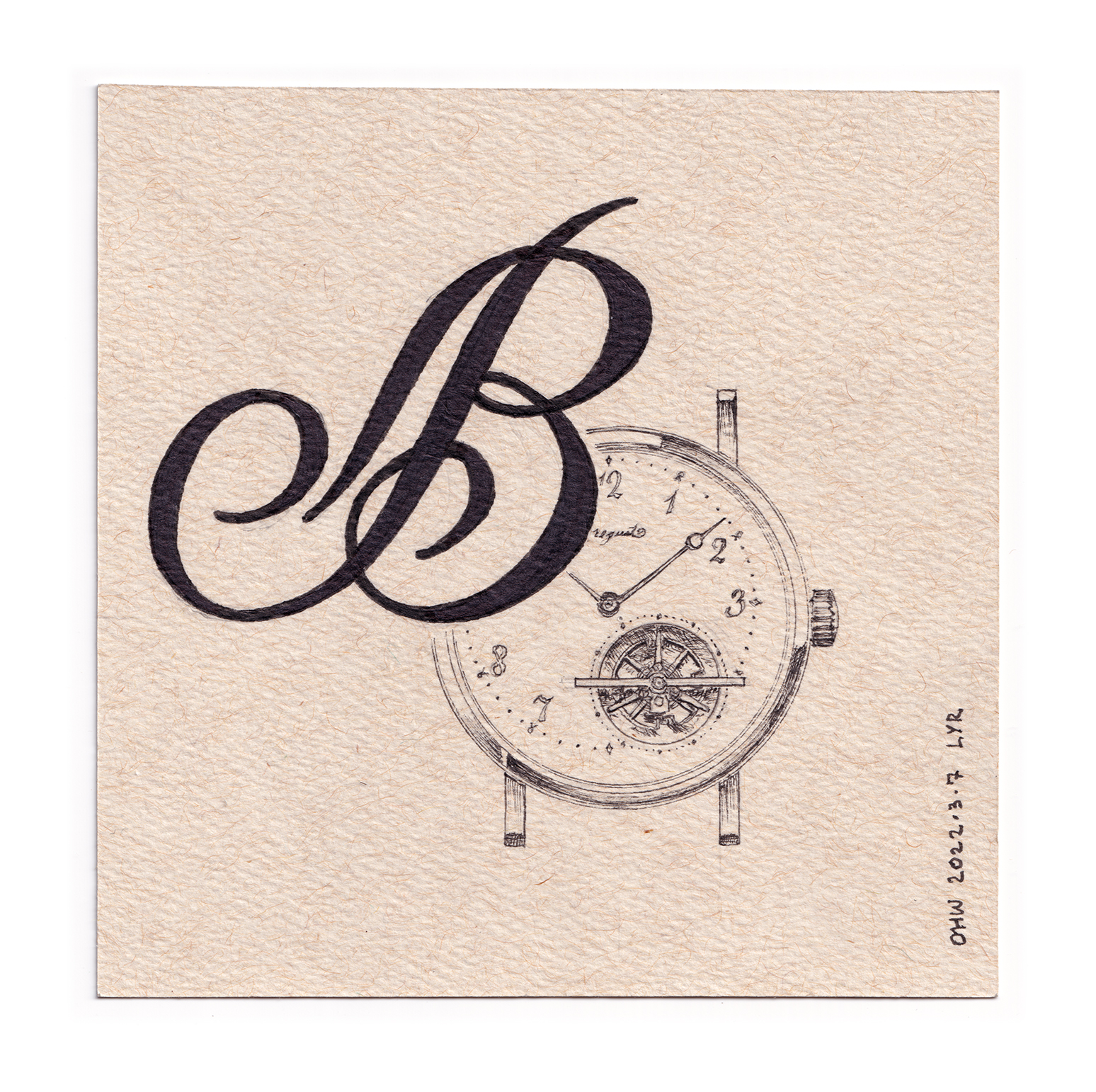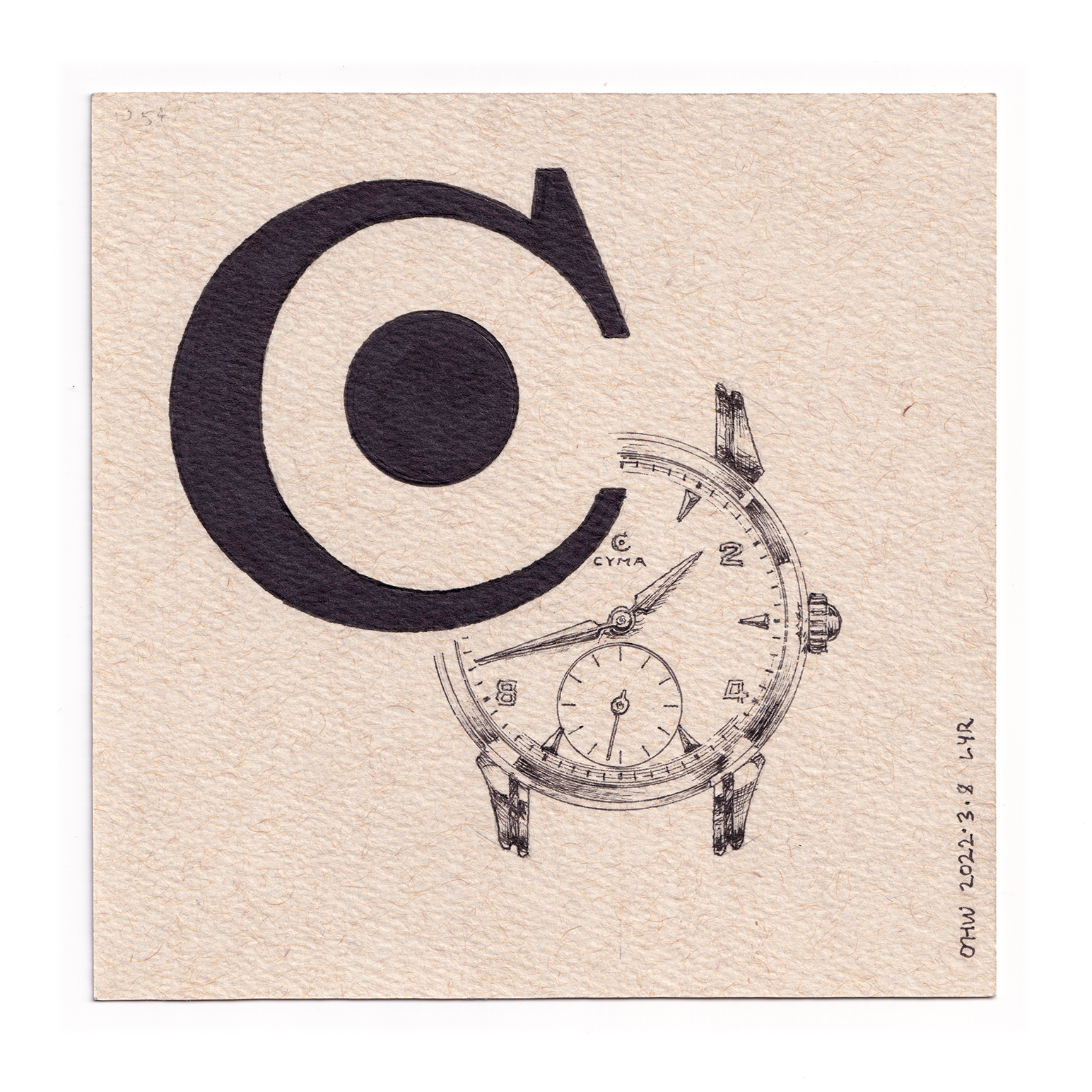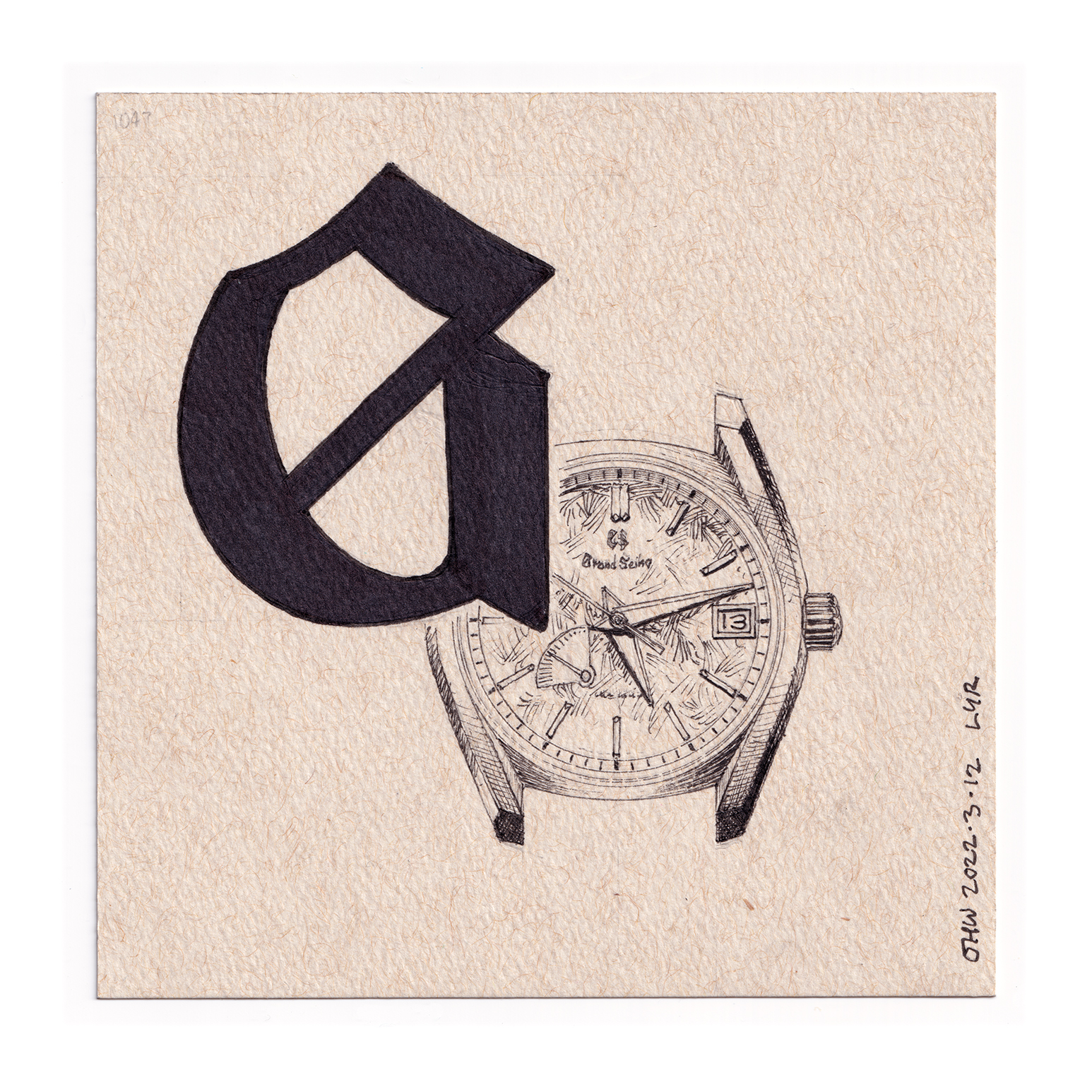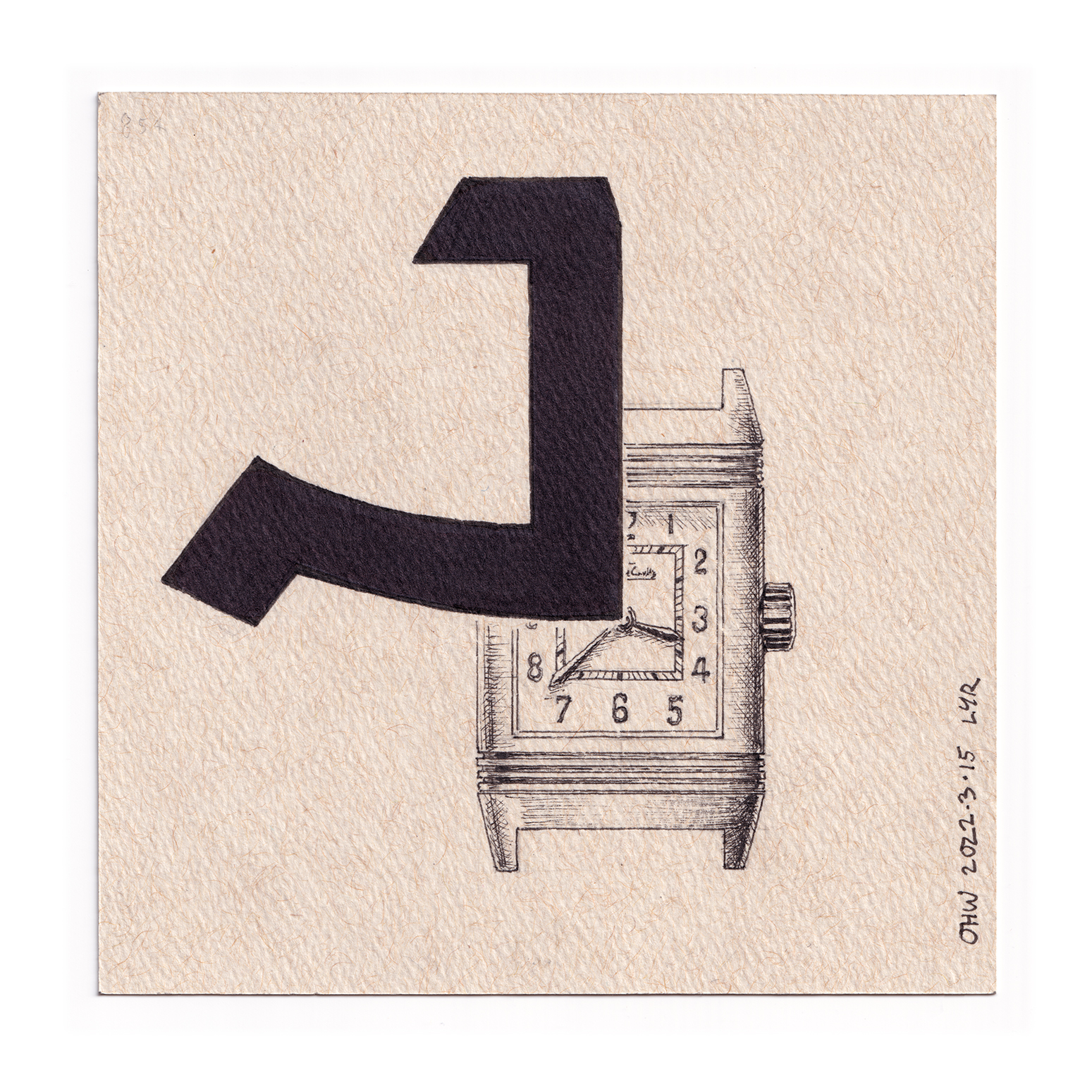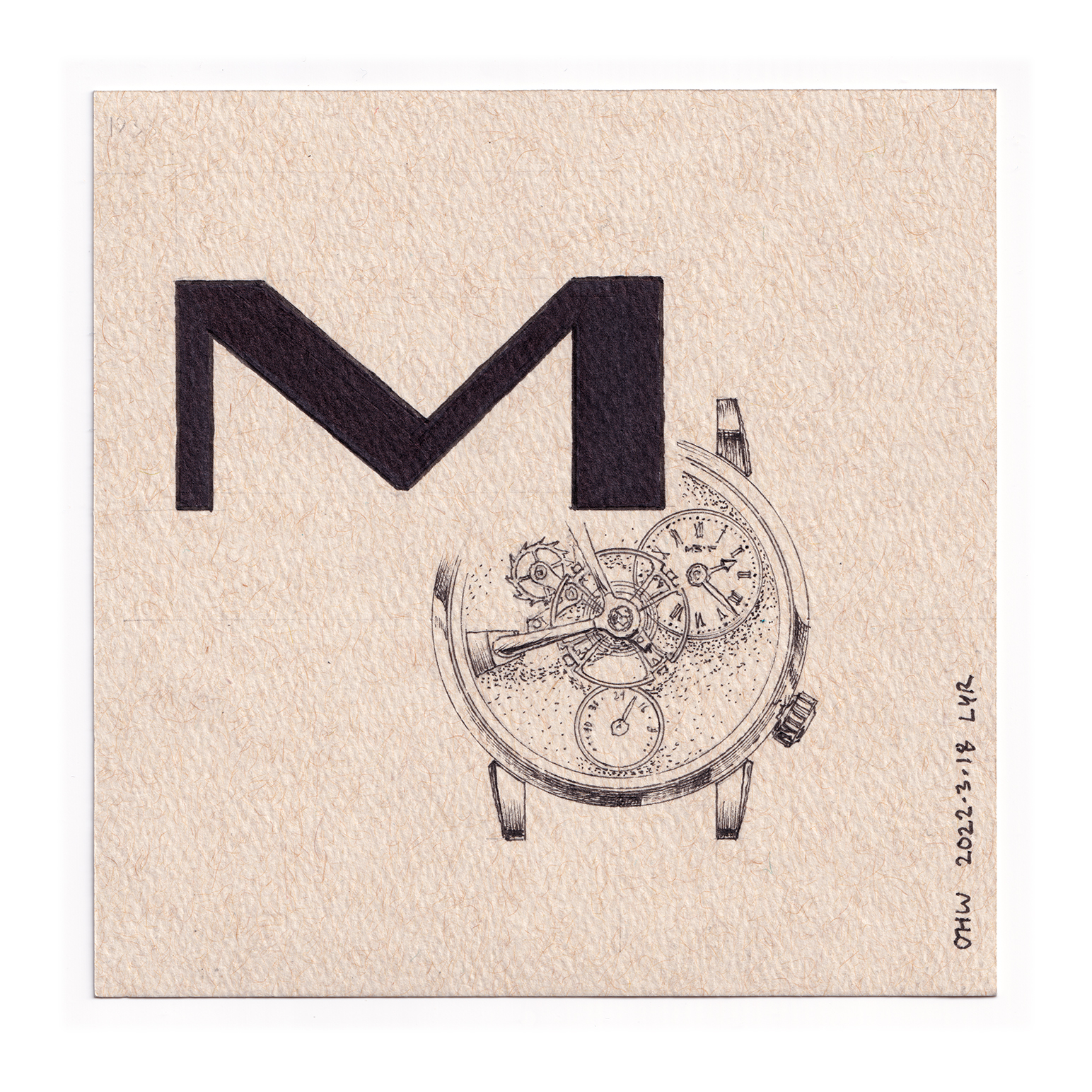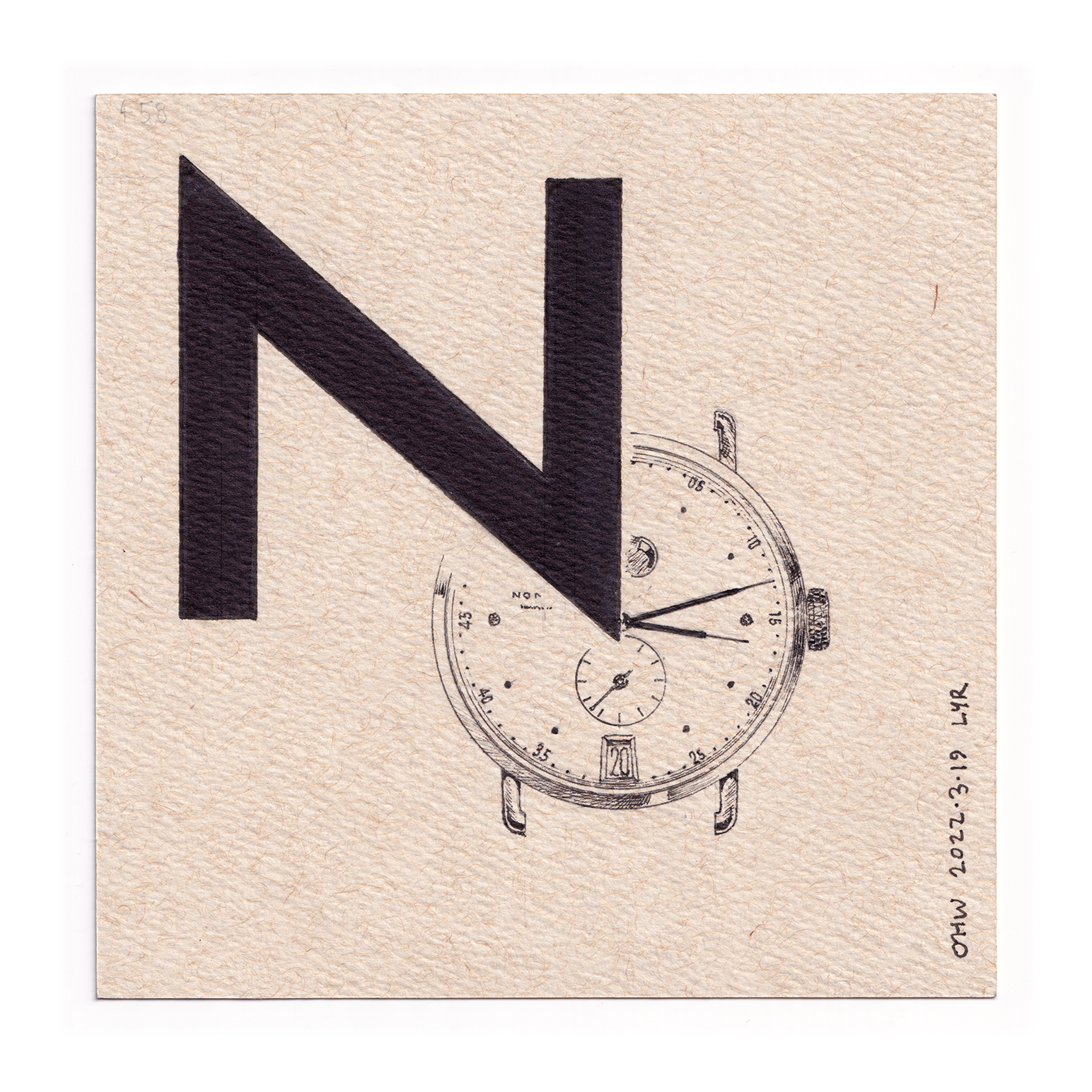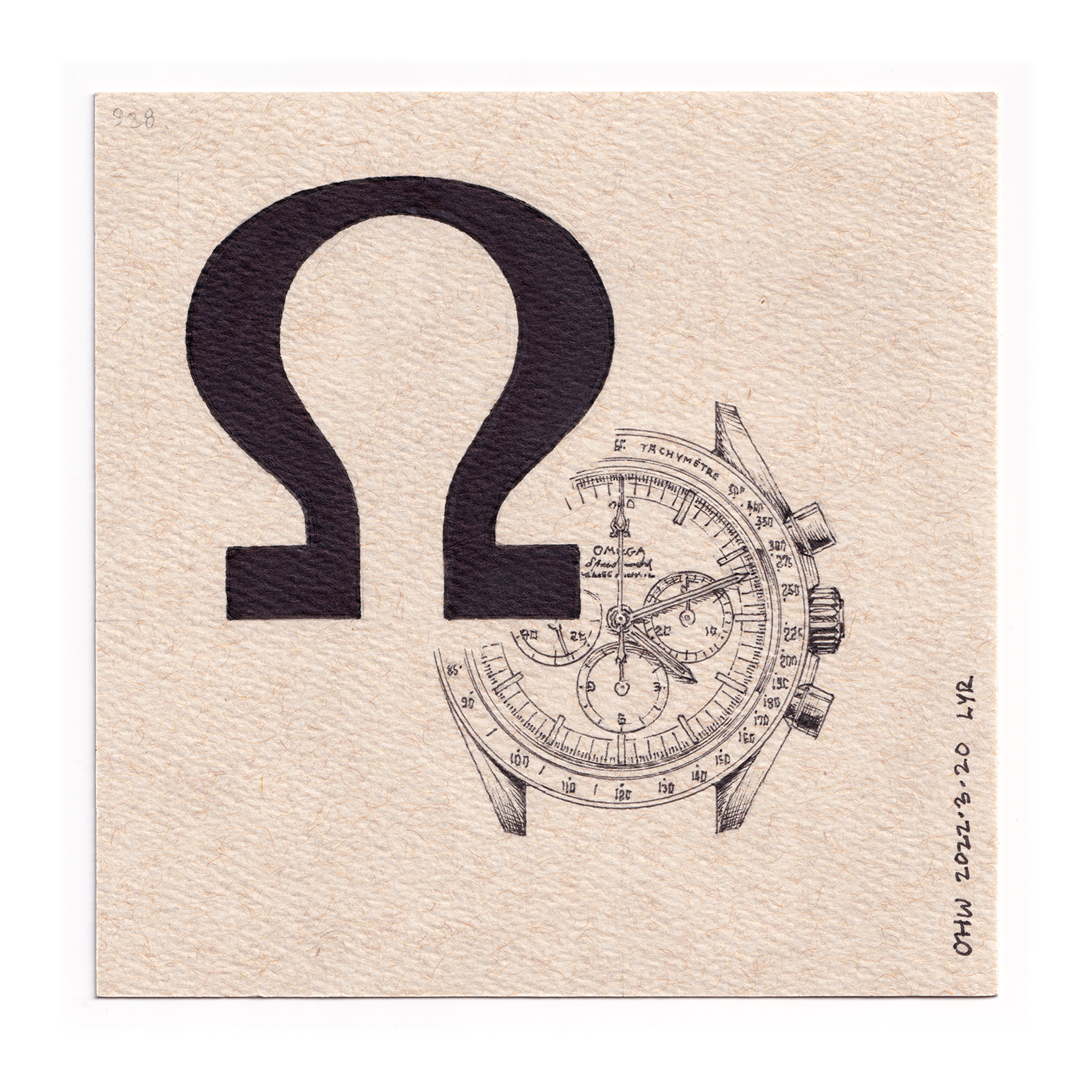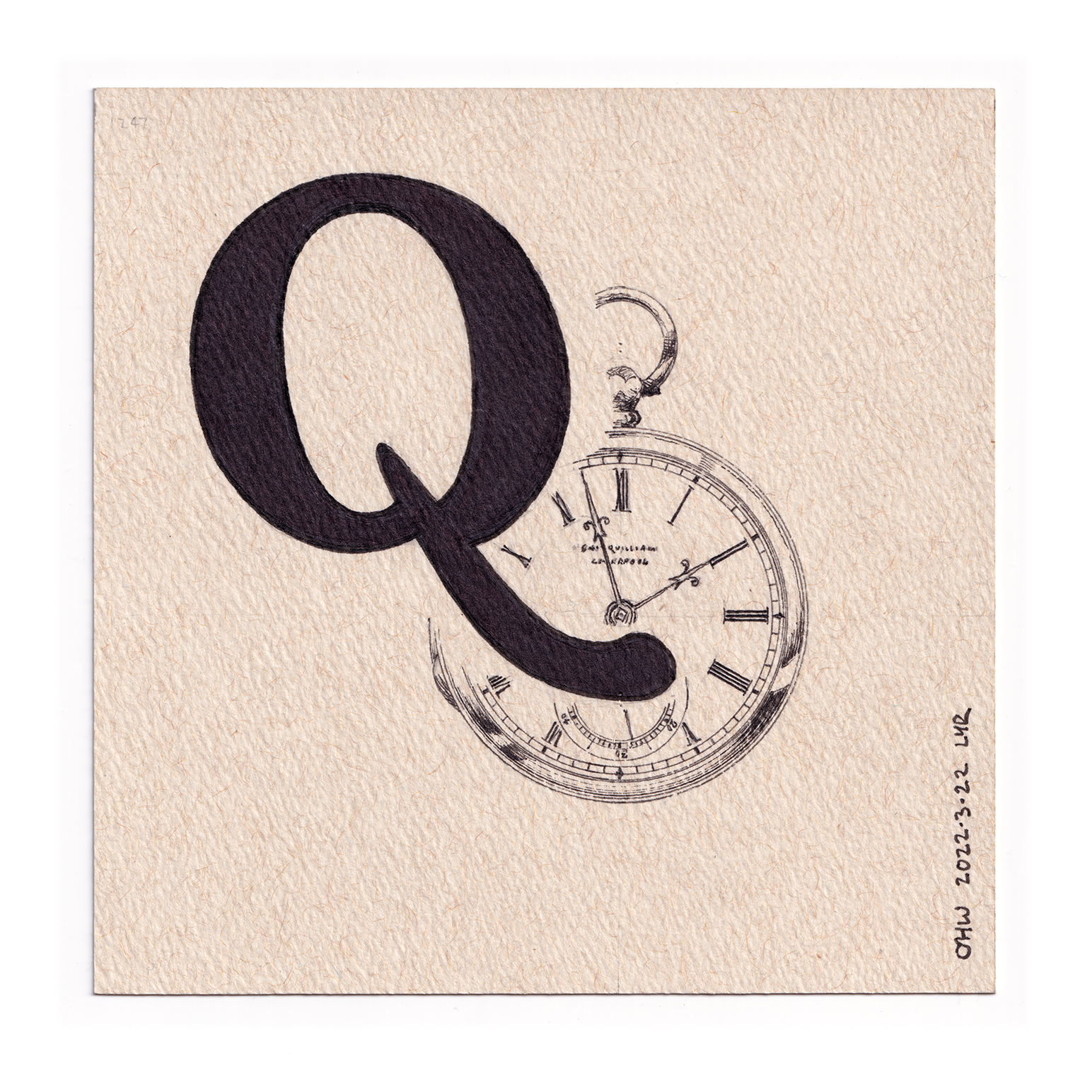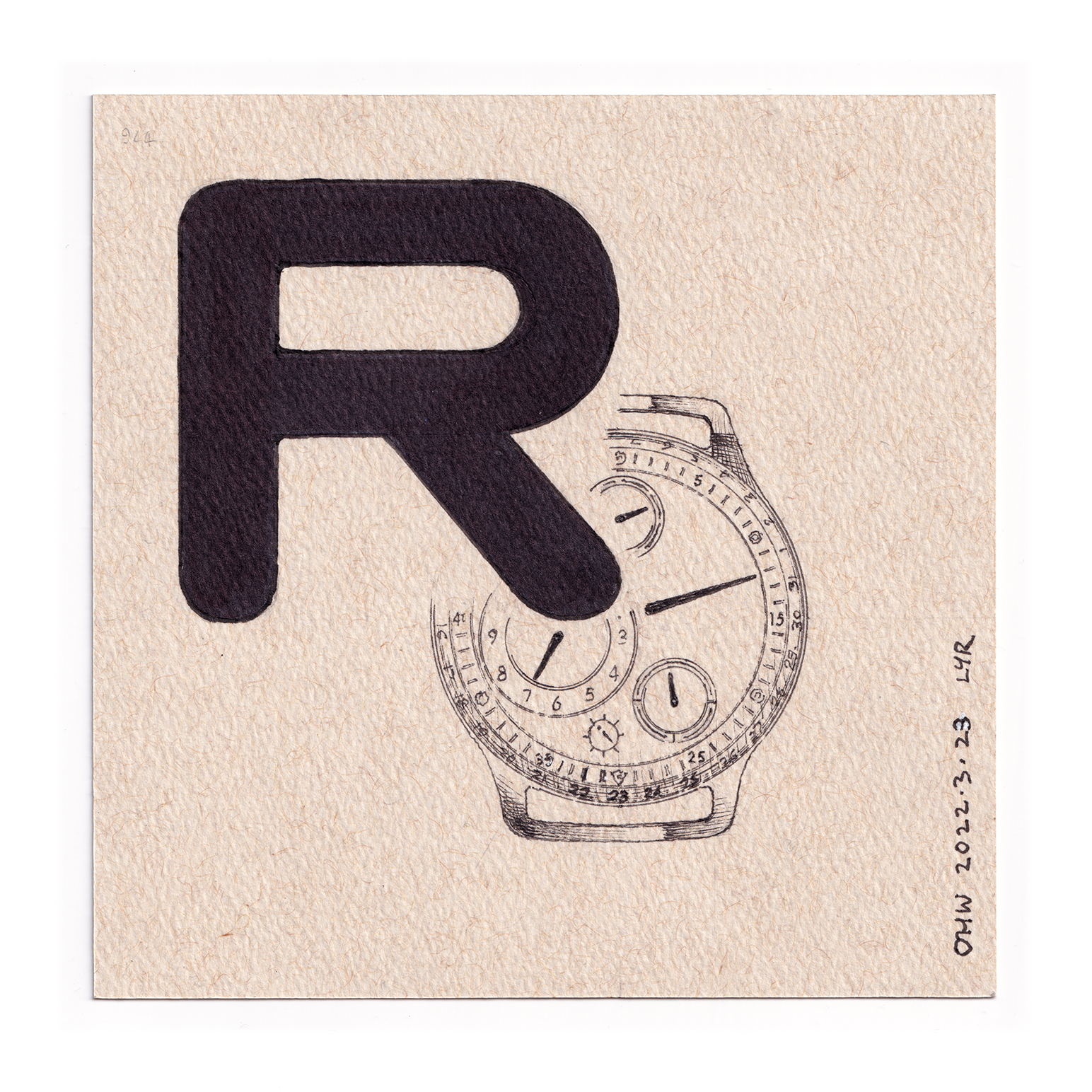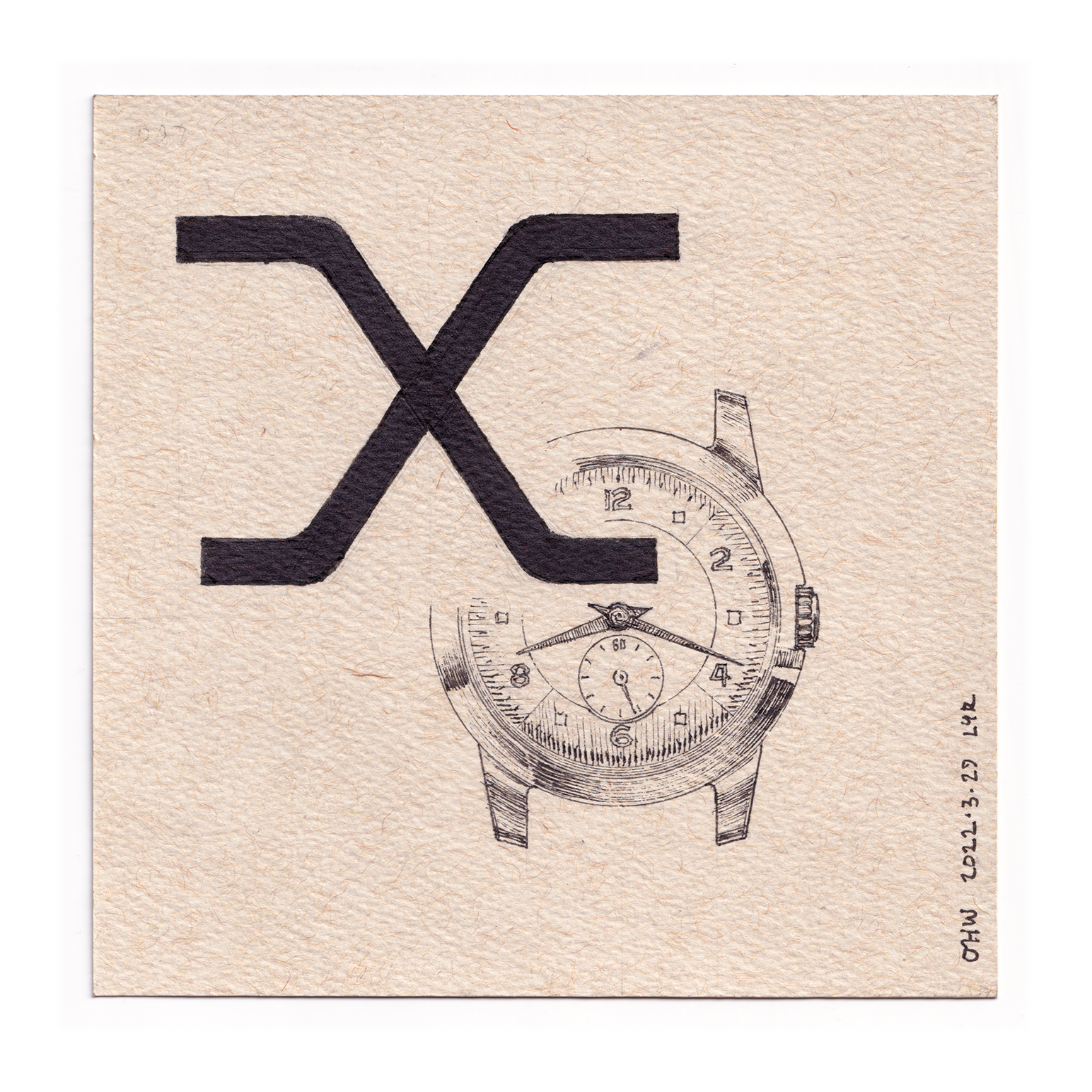
Following the popularity of 2021’s series, I decided to revisit the world of horological typography for the 2022 edition of 36 Days of type. This time around I decided to focus the series on watch logo initials with a set template. The brands chosen represent a mix of iconic names, interesting letterforms, and some eclectic choices. You can click on the images to enlarge them.
A Angelus
B Breguet
C Cyma
D Doxa
E Eterna
F Felca
G Grand Seiko
H Hamilton
I IWC
J Jaeger-LeCoultre
K Krayon
L Longines
M MB&F
N Nomos
O Omega
P Patek Philippe
Q (Samuel) Quilliam
R Ressence
S Stowa
T Tudor
U Universal Genève
V Vianney Halter
W Wittnauer
X Xaros
Y Yema
Z Zenith
0 Patek Philippe
1 Enicar
2 Hamilton
3 Lemania
4 Universal Genève
5 A. Lange & Söhne
6 Casio
7 Cyma
8 Breguet
9 Longines